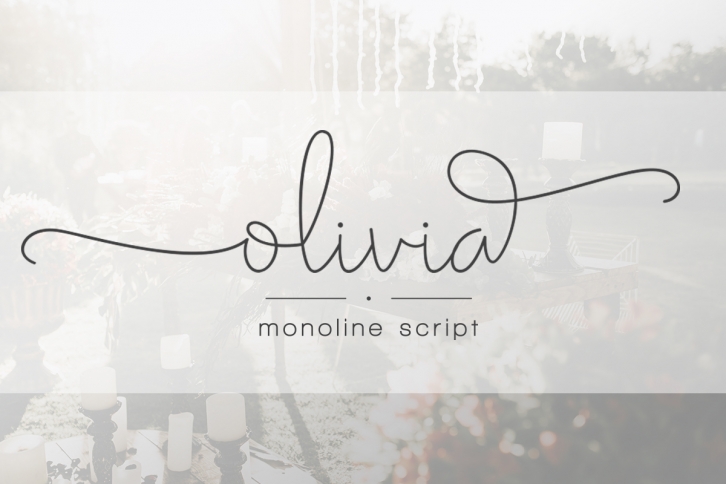
Olivia - Elegant Monoline Script FONT Download
Olivia - Elegant Monoline Script Font Download
Olivia is a great font that was designed by dharmas. Imagine the amount of combinations you can create using this font! The archive is 12.75 MB and it was released on July 26, 2018. Olivia looks beautiful on wedding invitations, greeting cards, logos, posters, labels, t-shirt designs, logos, business cards and is perfect for use in ink or watercolor works, fashion, magazines, packaging and food menus, children's books and more!